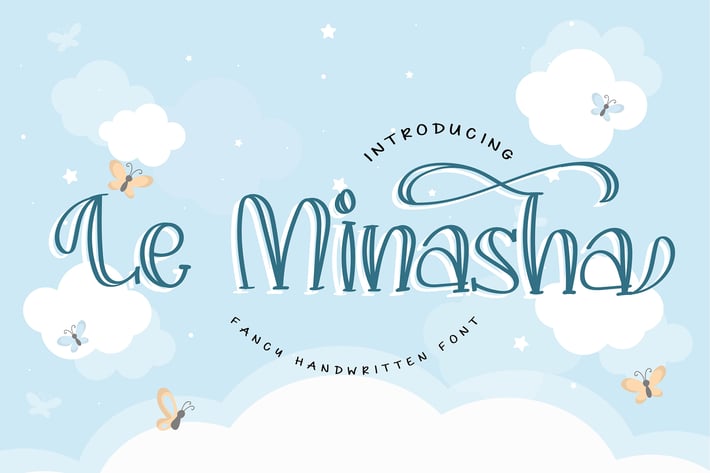
Le Minasha | Fancy Handwritten Font
Le Minasha | Fancy Handwritten Font with a calligraphy style, So beautiful on invitation like greeting cards, branding materials, business cards, quotes, posters, and more!